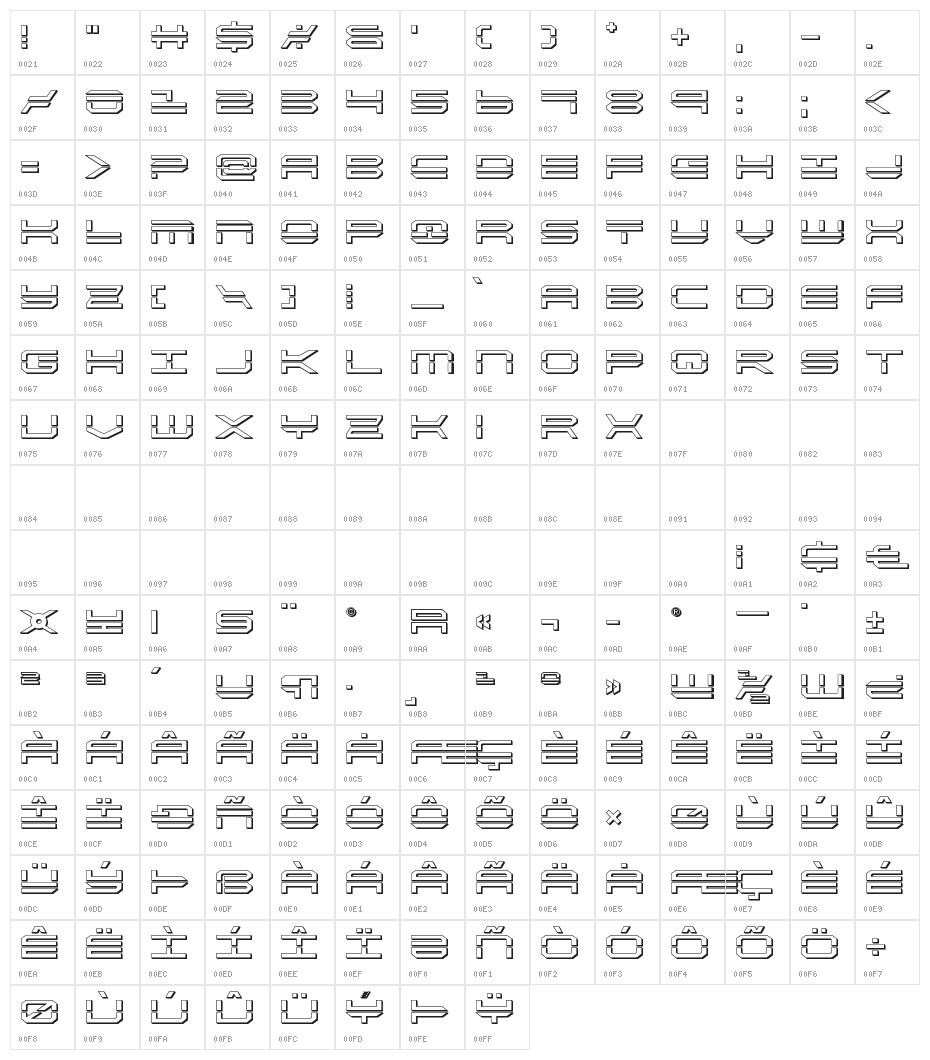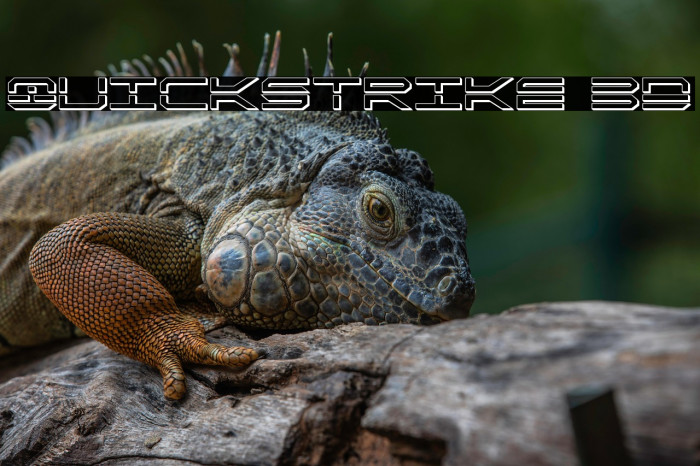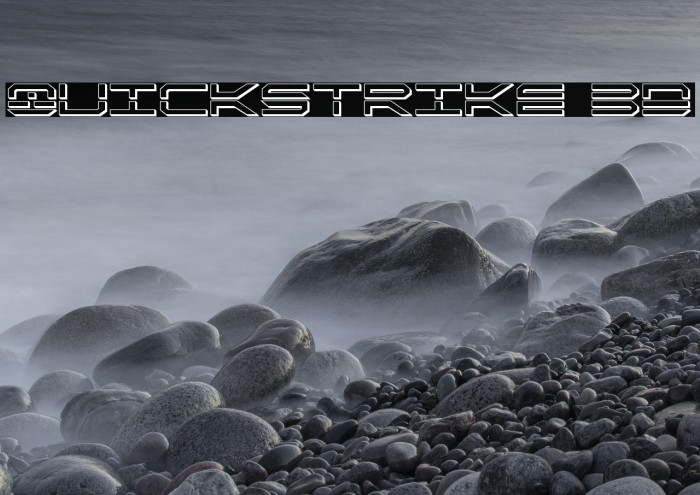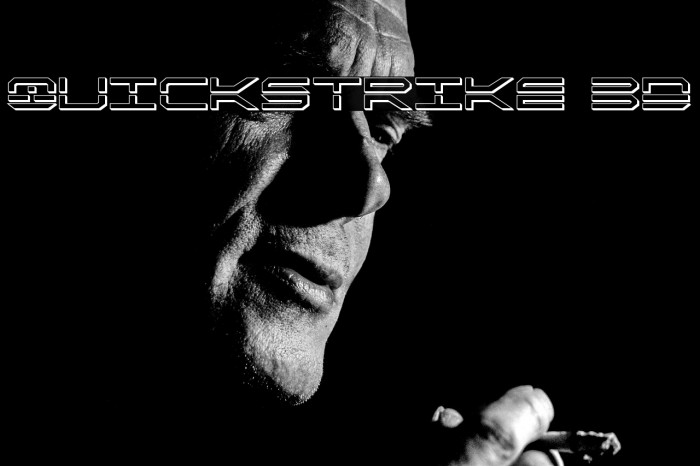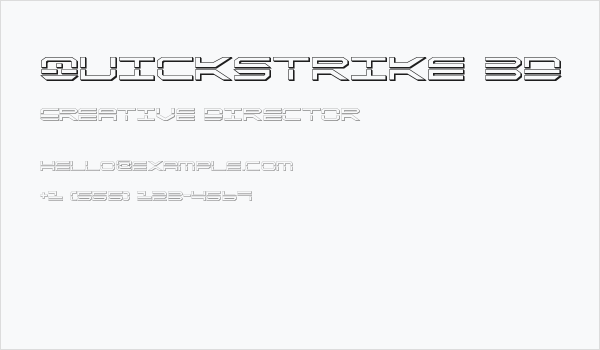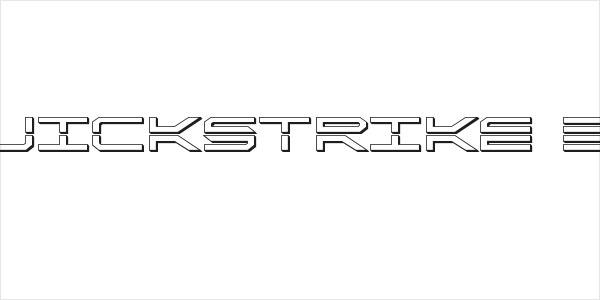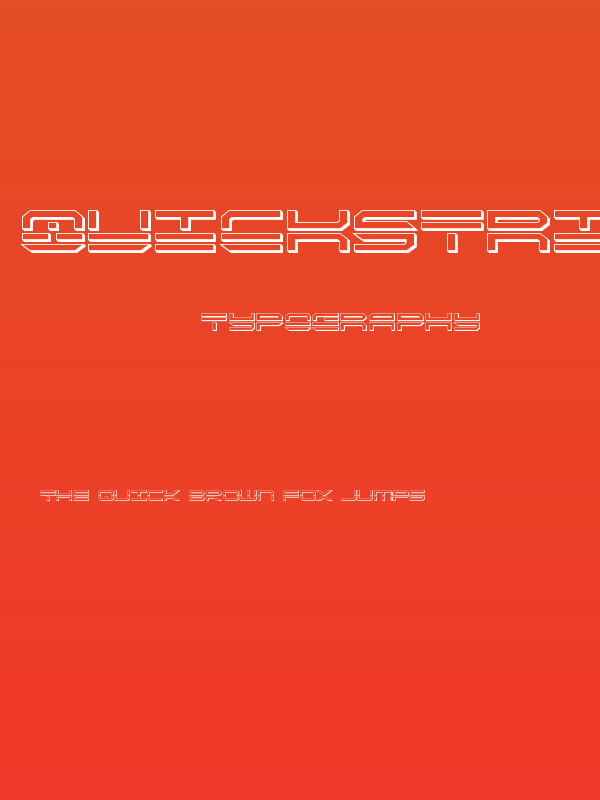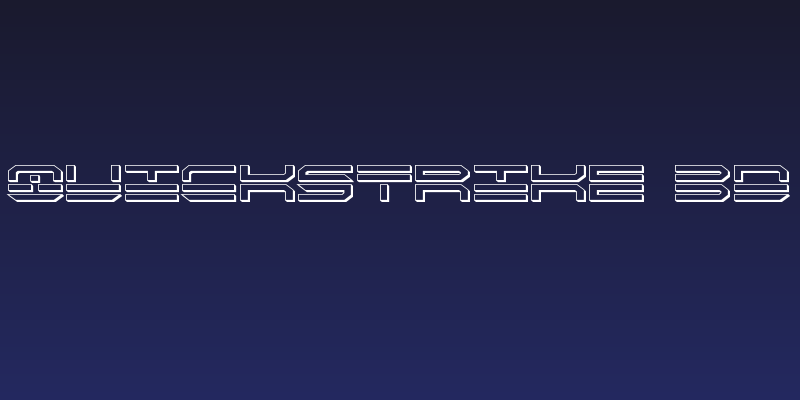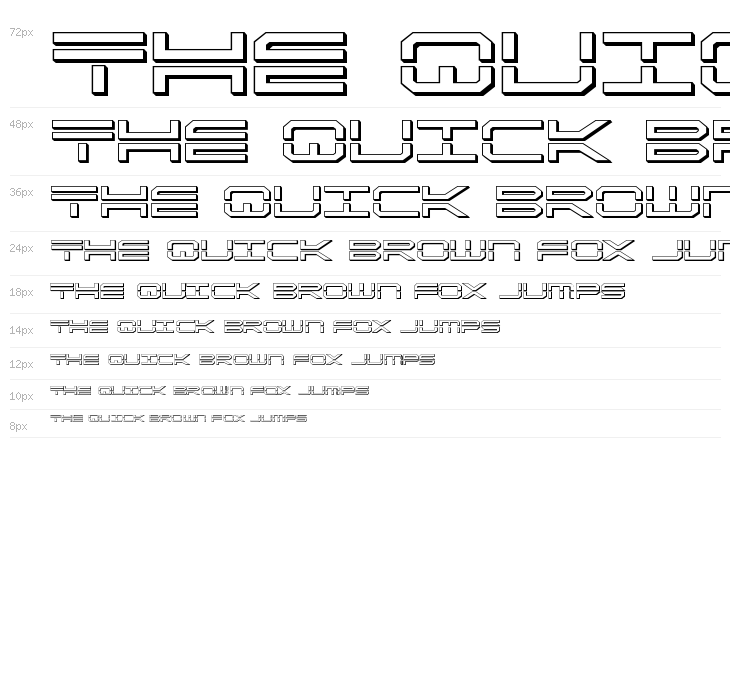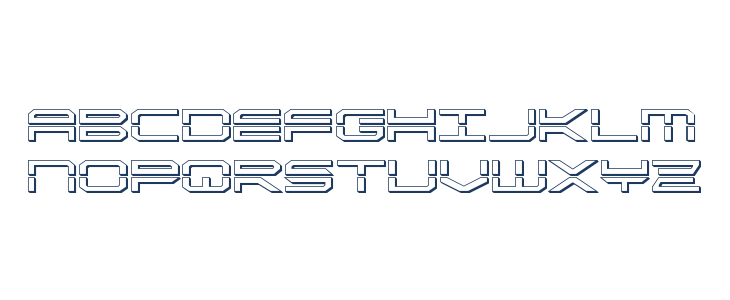
QuickStrike 3D Font
QuickStrike 3D Description
This font features a futuristic and geometric design with a three-dimensional effect. The characters are outlined with a double line, creating a sense of depth and structure. The uppercase and lowercase letters maintain a consistent style, emphasizing angular and straight lines. The numbers and special characters follow the same design principles, ensuring uniformity across all glyphs. This font is ideal for projects that require a modern and tech-inspired aesthetic.
Proposed ProjectsIdeal for sci-fi themed designs, tech branding, video game titles, and digital art projects.